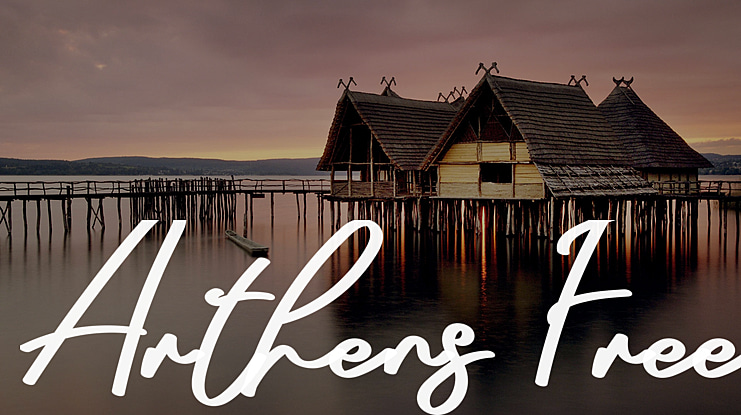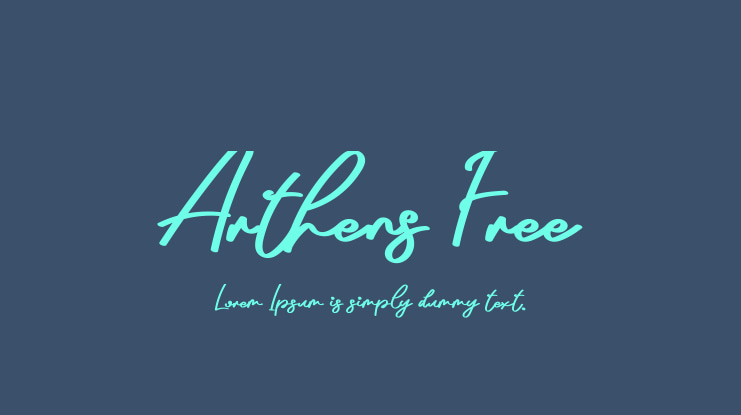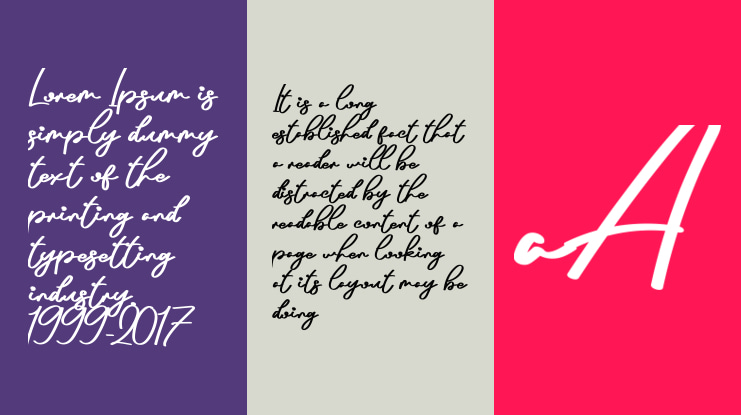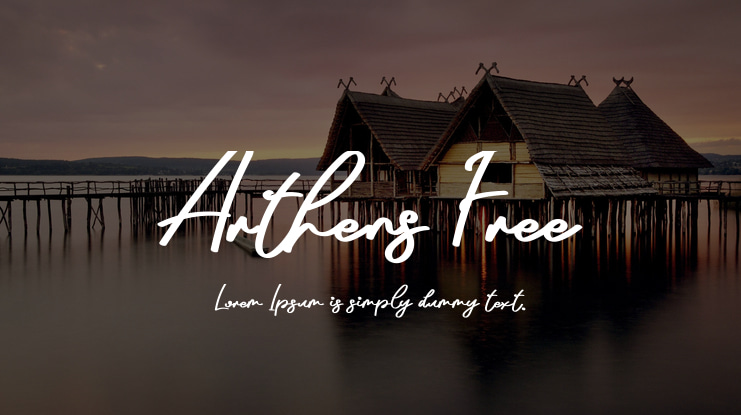
Arthens Free Font
Aditya Rezki
Introduce our new Script font !!Called "Arthens" this is a new Script fontwith a beautiful Alternate and LigatureTo make your Business or name card look more Classy, luxury and elegantyou can use it on website, branding, logo project and every projectthat need elegant and classy look- Easy to use, Easy to install- PUA encoded- Alternate & Ligature- Multilingual SupportYou can try it first down below, before you decide to purchaseThank you !